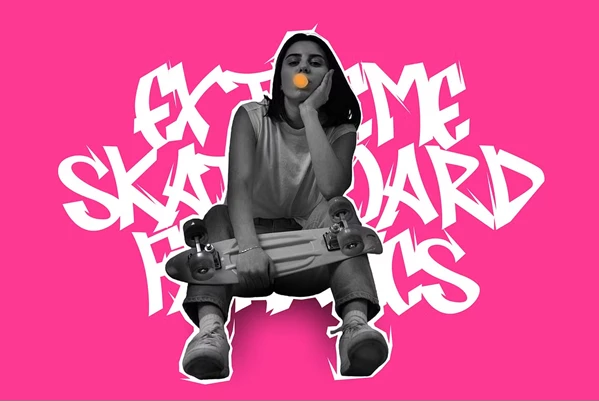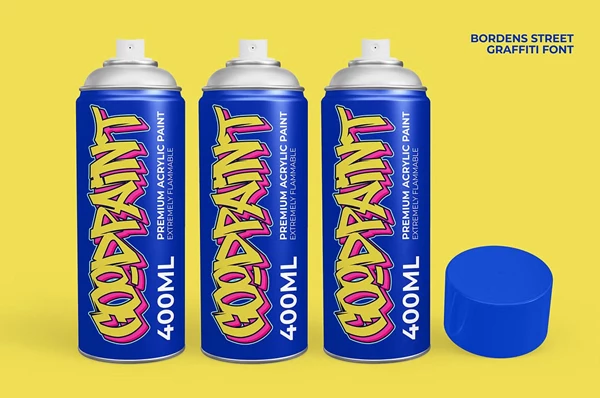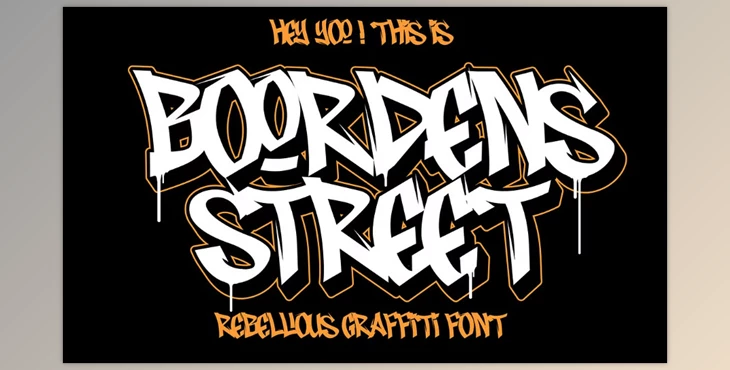
Boordens Street - Graffiti Font:
Boordens Street is a bundled font. Boordens Street comes with a brush font and a graffiti font.
With the Boordens Street font, you can effortlessly design energetic posters and album covers as it adds a sense of urban flair and notification to your work whilst retaining the feel of the graffiti culture. The font, being raw and dynamic, can be used for various forms of designs that need an additional edgy touch without overshooting the design flow.
Some great features of Boordens Street - Graffiti Font:
- Urban Authenticity: Enable to speak volumes by itself. It is made for people who need fast-paced designs with no compromise in style. The font can easily stand out in both digital and traditional prints.
"Boordens Street - Graffiti Font" Samples: